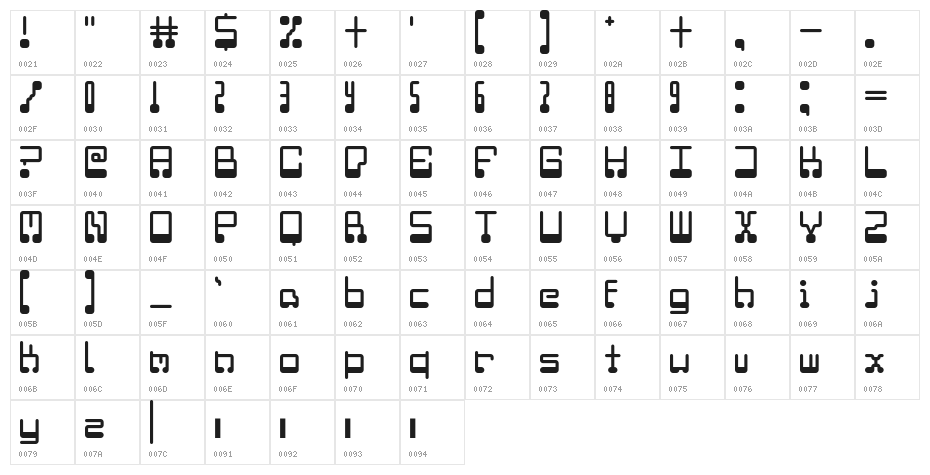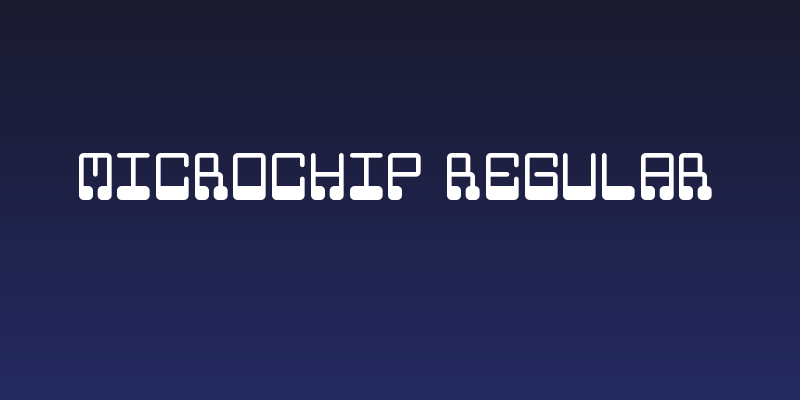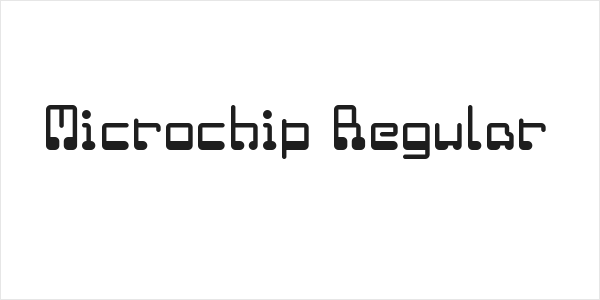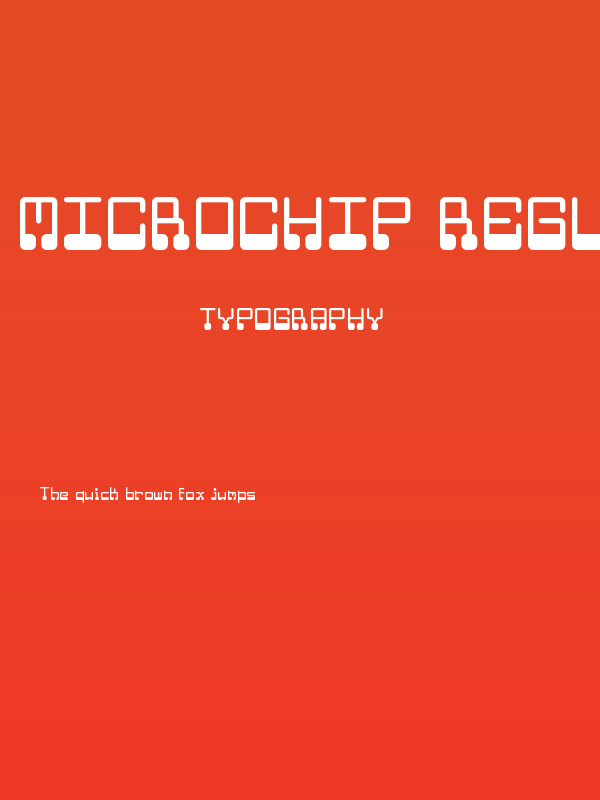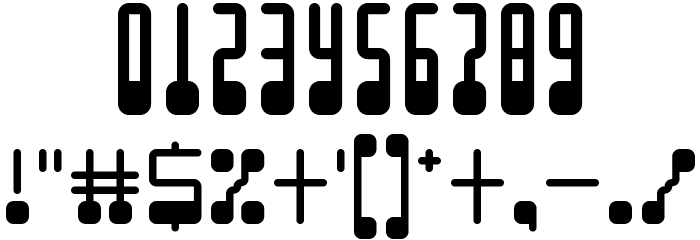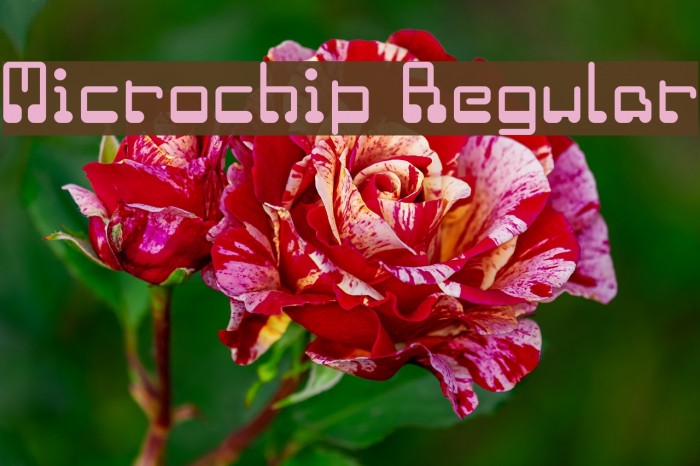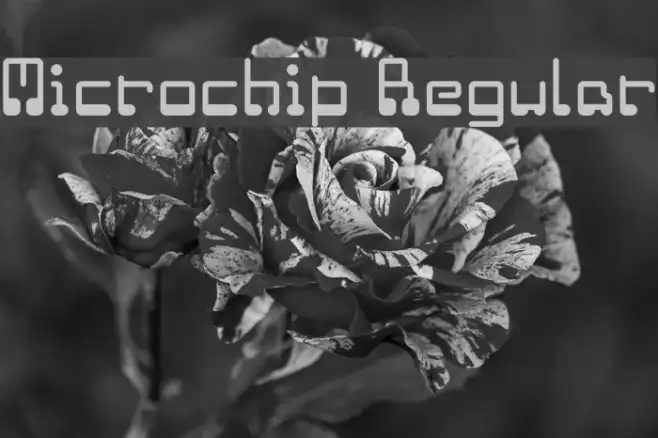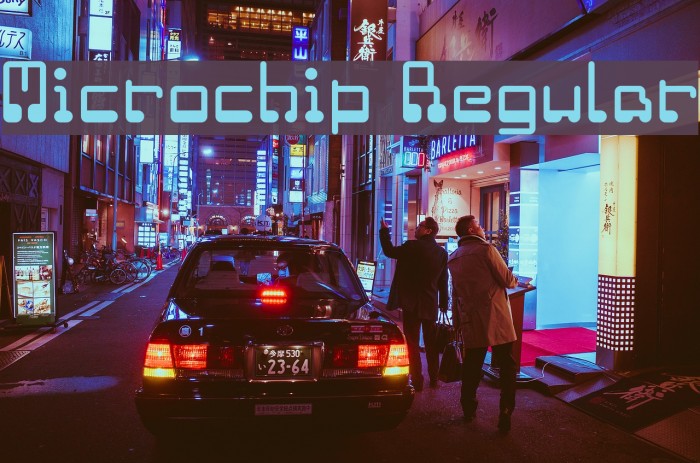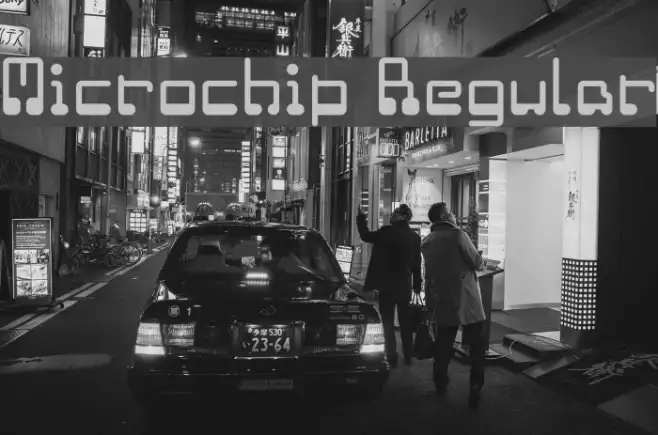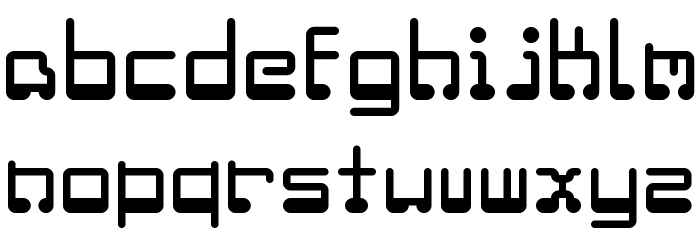
Microchip Regular Font
Microchip Regular Description
This font exhibits a futuristic and technological design, characterized by its geometric shapes and rounded corners. The letters are bold and uniform, with a distinct digital aesthetic reminiscent of circuit boards or electronic displays. The consistent stroke width and unique terminal shapes give it a modern and innovative feel, making it stand out in any design project. Its structured appearance is both eye-catching and functional, suitable for conveying a sense of modernity and precision.
| Use Case | Logos, Headlines, Tech interfaces |
| Proposed Projects | Ideal for tech-related branding, digital interfaces, video game design, and futuristic posters. |